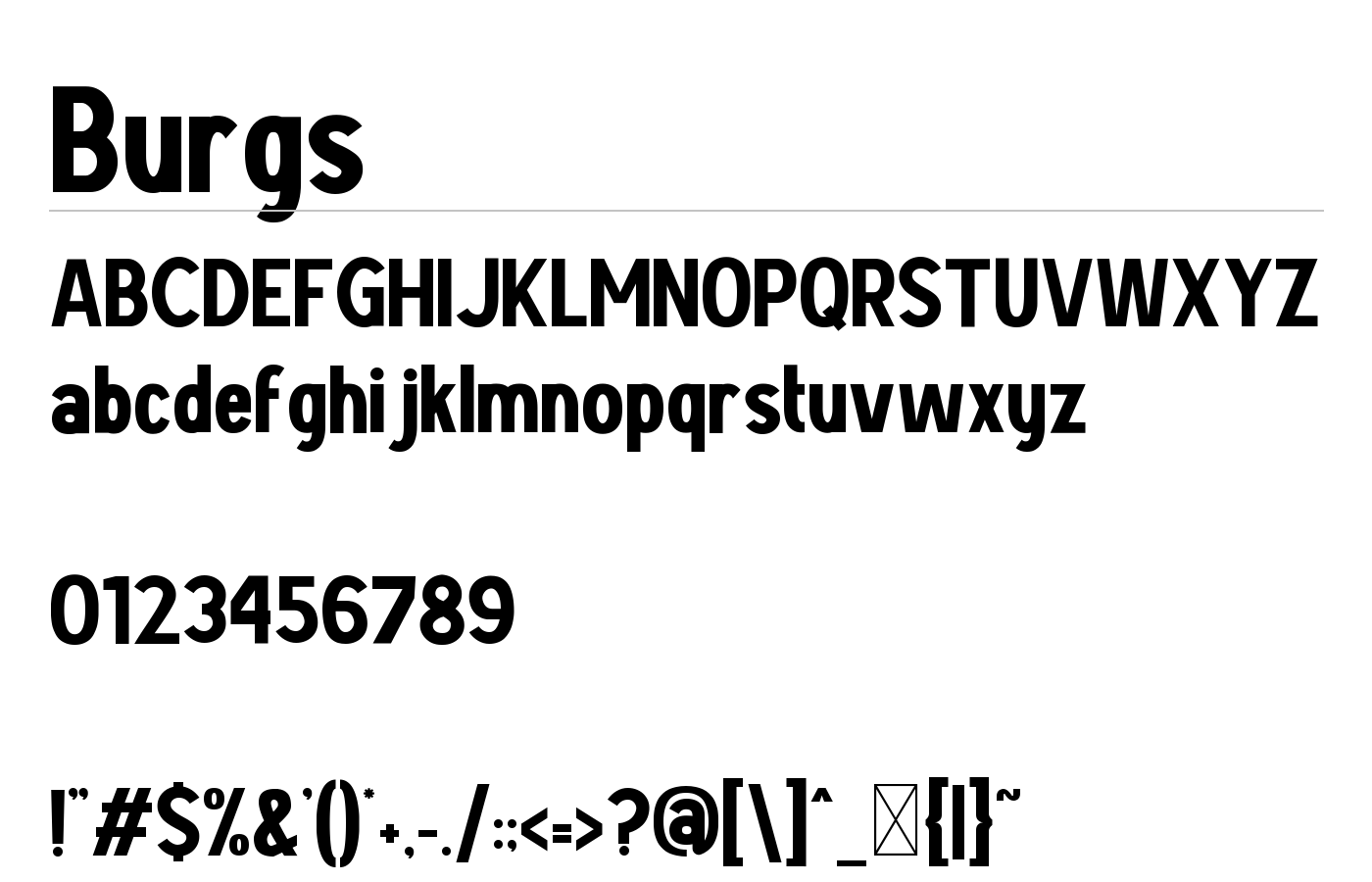
Burgs is a bold, sans-serif typeface with a strong, slightly condensed structure and a modern, geometric feel. Its clean lines and moderate contrast make it highly legible and impactful, perfect for commanding attention in headlines, logos, and branding projects where a confident and contemporary look is desired. This font works well in both print and digital formats, lending a professional yet approachable personality to a variety of design contexts.
Burgs Font
About Burgs Font